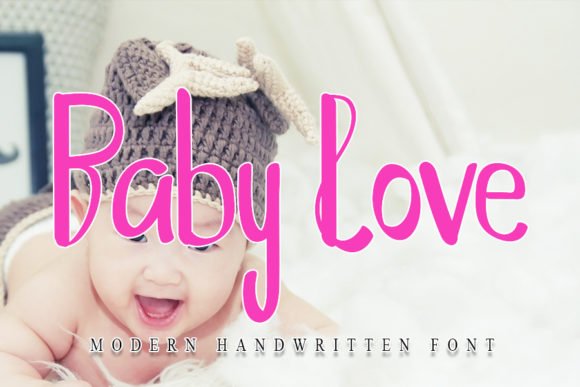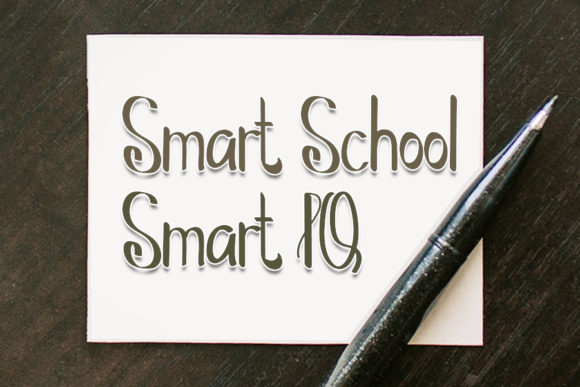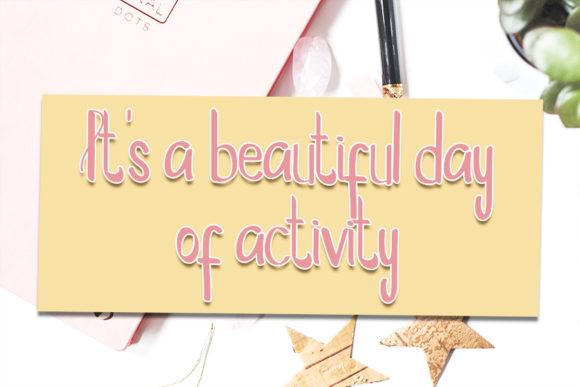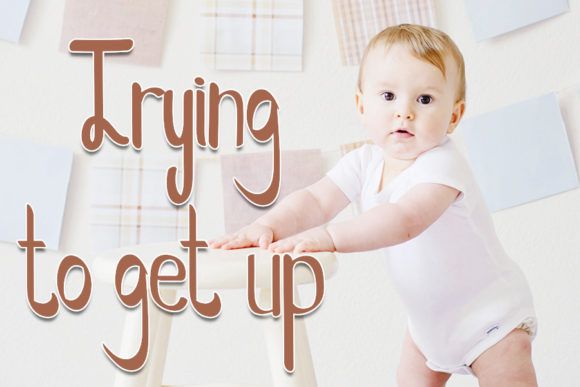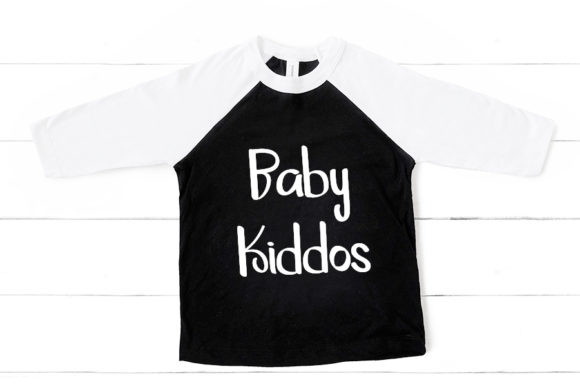
The Perfect Touch of Whimsy: Baby Love Font
Have you ever found yourself in a creative flow, surrounded by scattered papers, scribbled notes, and a hint of magic in the air? That’s exactly what happened to us when we stumbled upon the Baby Love Font. Its delicate curves and whimsical charm transported us to a world of romance and joy, where every design project feels like a labor of love.
At its core, the Baby Love Font is a beautiful, handwritten script designed to add a touch of elegance and warmth to any project. Whether you’re crafting wedding invitations, cards, or any other design that needs a personalized touch, this font is the perfect companion. Its dainty lines and playful flourishes make it an invaluable asset for designers seeking to infuse their work with a sense of love and wonder.
Baby Love Font Key Features
- Unique Characteristics: Features a playful, handwritten style with rounded edges and subtle flourishes, perfect for baby-related designs or children’s products.
Designer Review: Baby Love Font
I recently had the chance to work with the Baby Love Font, and I must say, it’s a sweet addition to any design project. Here’s my honest review.
- The font’s playful, cursive style is perfect for creating a whimsical atmosphere.
- The uppercase and lowercase letterforms are well-designed, with a consistent and smooth flow.
- The font is highly customizable, with a wide range of sizes and styles available.
- The font’s small caps are somewhat inconsistent, with some letters feeling a bit too condensed.
- The font doesn’t include many specialty characters, which can be a limitation for designers who need to create international content.
- The font’s ligatures can be a bit too tight, which may cause issues for designers who need to use the font at small sizes.
Overall, I’d say the Baby Love Font is a solid choice for designers who want to add a touch of sweetness to their projects. While it has some limitations, its strengths far outweigh its weaknesses, making it a great addition to any design library.
For the best results, use the Baby Love Font for projects that require a playful and whimsical touch, such as:
– Children’s party invitations
– Baby shower decorations
– Nursery wall art
– Custom gift tags
Alternative Fonts to Baby Love Font
Lovely Script
Lovely Script is a beautiful, elegant script font perfect for adding a touch of sophistication to your designs. It features connected letters and a flowing feel, making it ideal for invitations, wedding stationery, and other formal events. When to use: formal events, invitations, wedding stationery.
Comparison to Baby Love Font: Lovely Script has a more mature and elegant feel compared to Baby Love Font, which is more playful and cursive. Lovely Script is better suited for formal events, while Baby Love Font is better for casual designs.
Great Vibes is a modern script font that exudes a sense of playfulness and energy. It features a mix of cursive and handwritten elements, making it perfect for creating eye-catching headlines and titles. When to use: headlines, titles, social media graphics.
Comparison to Baby Love Font: Great Vibes has a more modern and edgy feel compared to Baby Love Font, which is more classic and cursive. Great Vibes is better suited for creating bold and attention-grabbing headlines, while Baby Love Font is better for creating a more subtle and elegant look.
Q: Can I customize the Baby Love Font to fit my design needs?